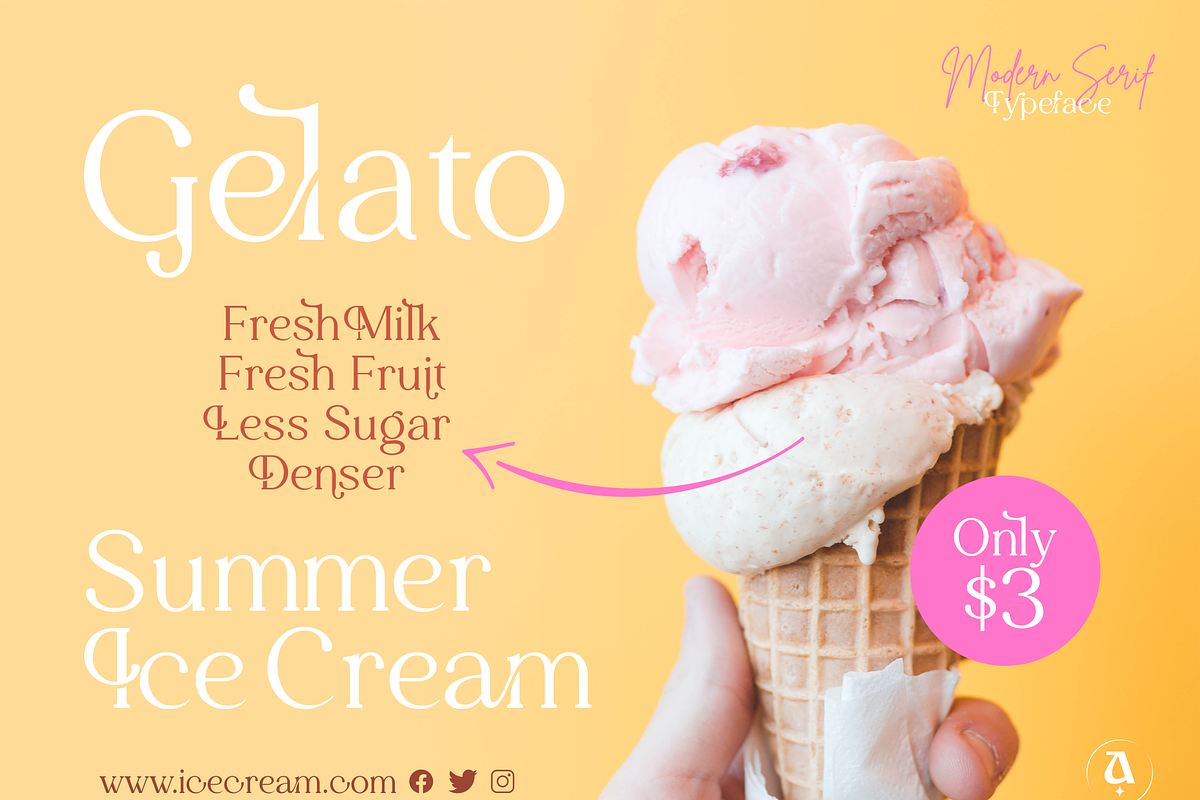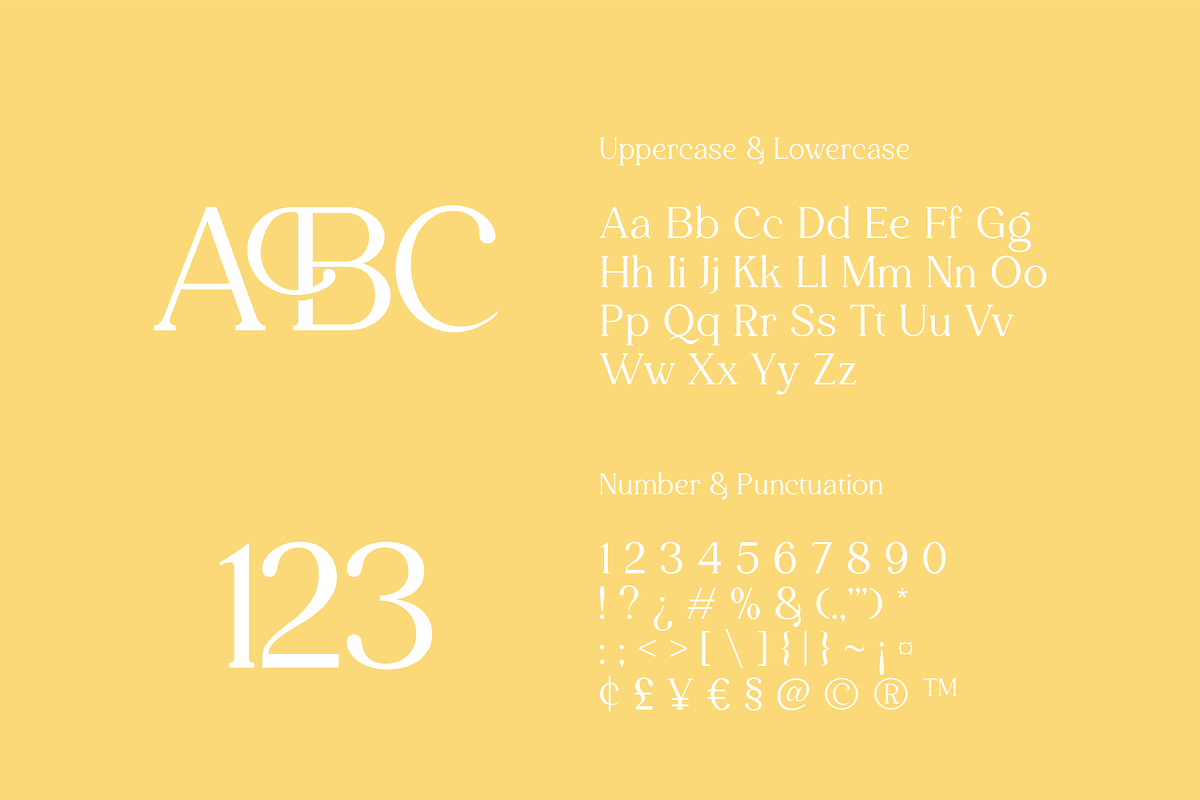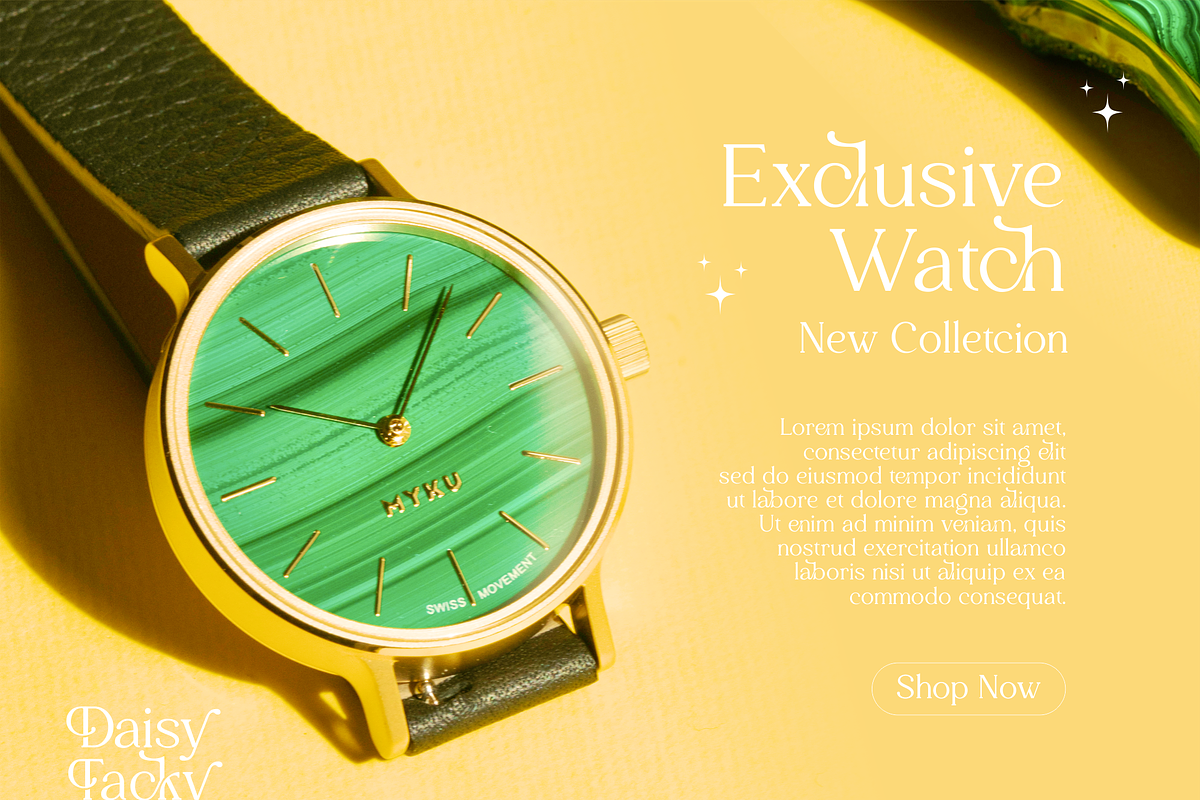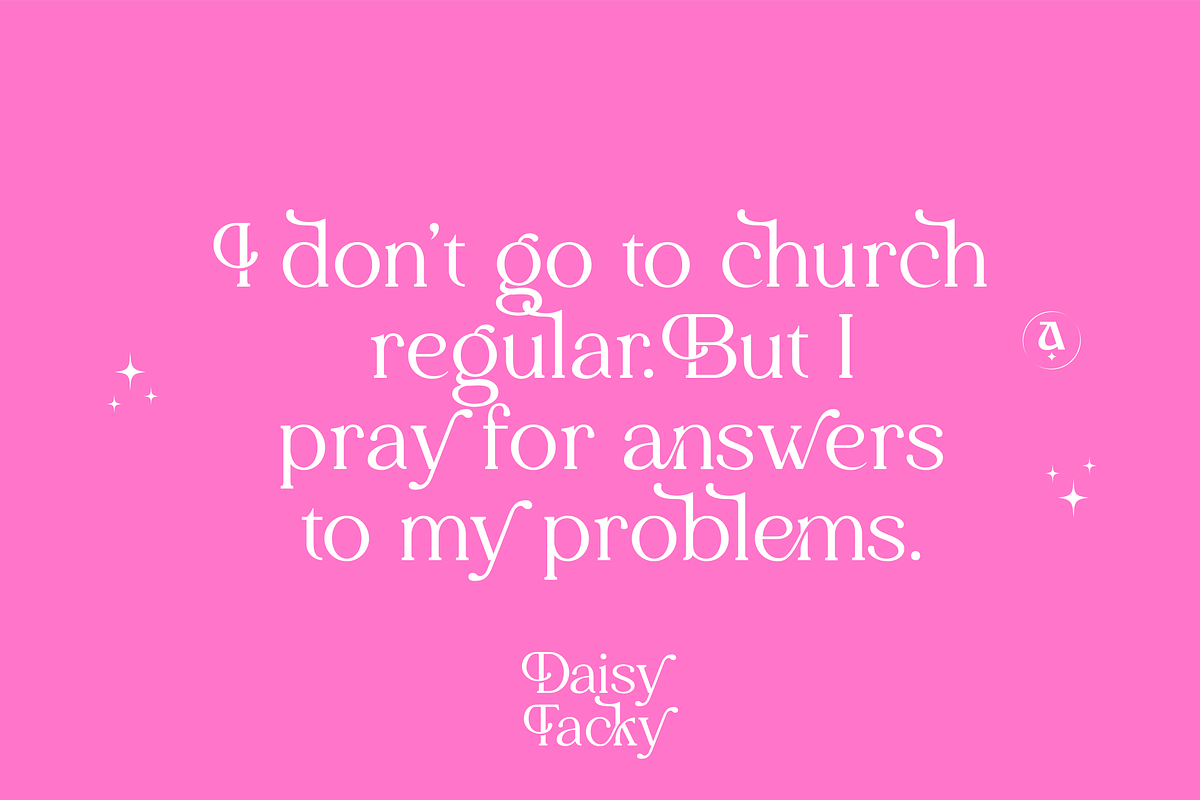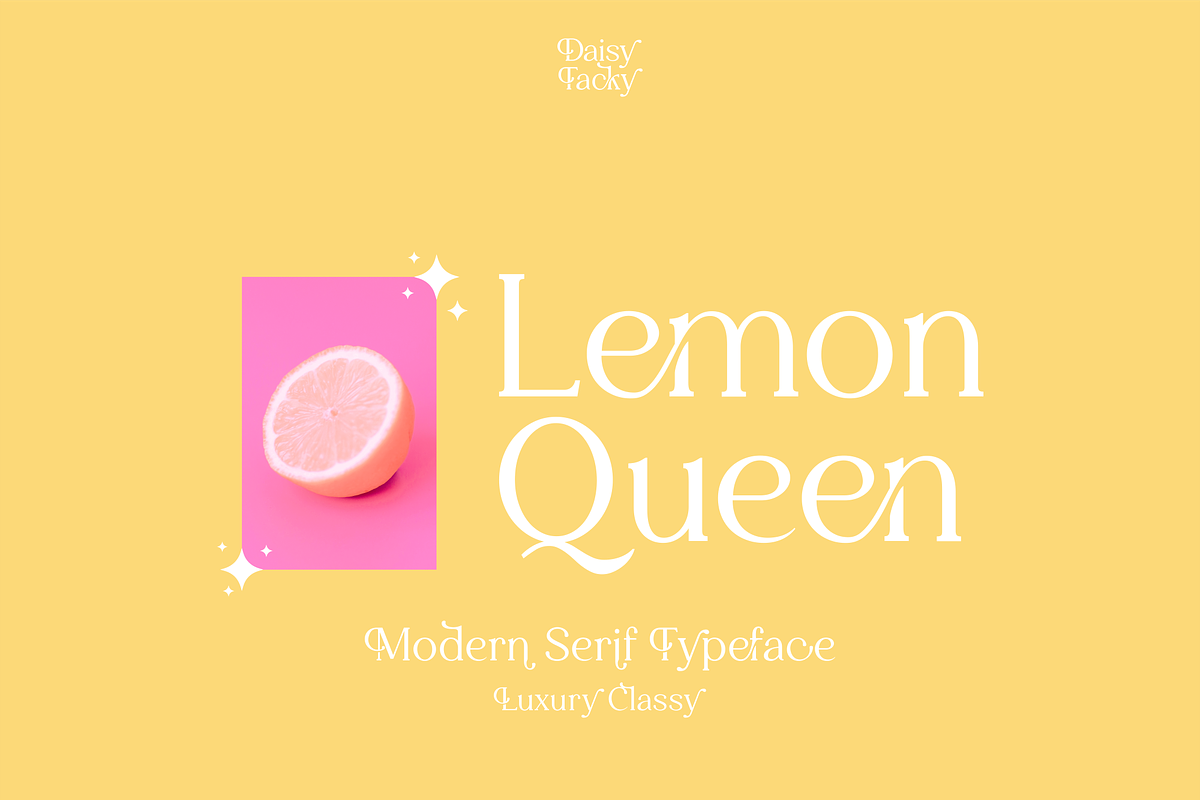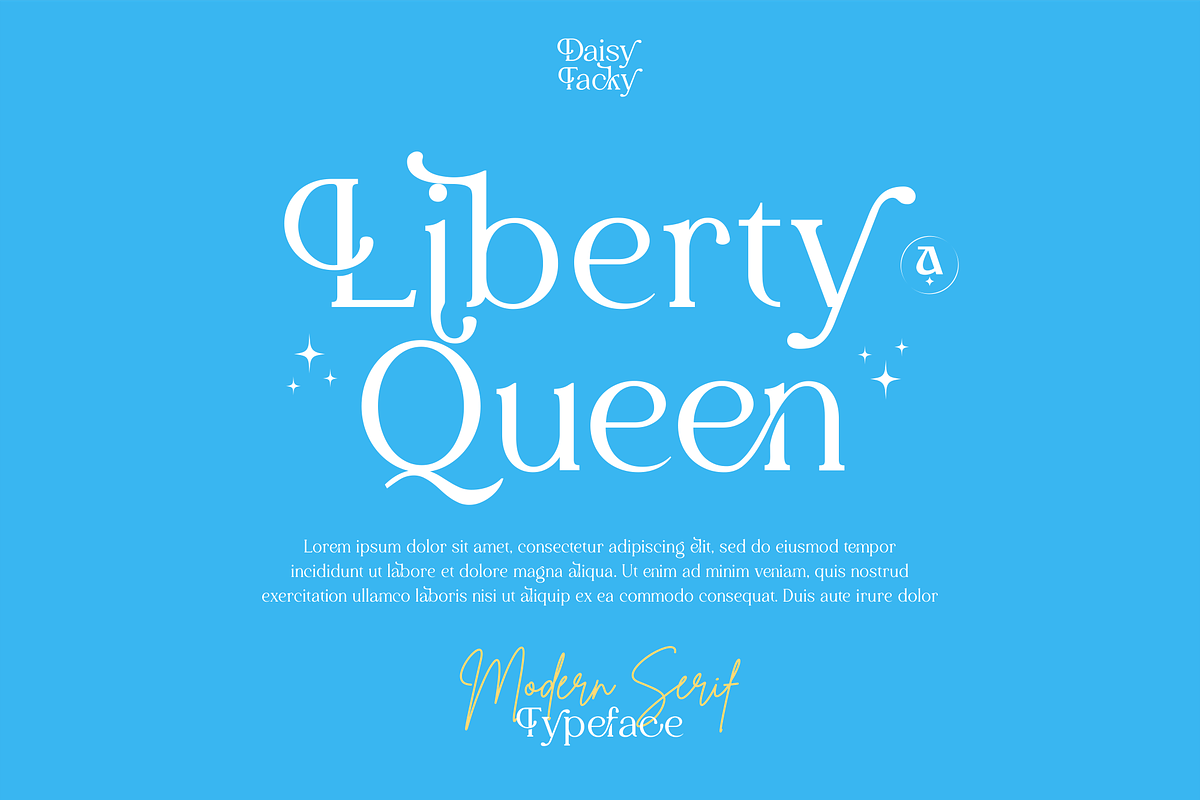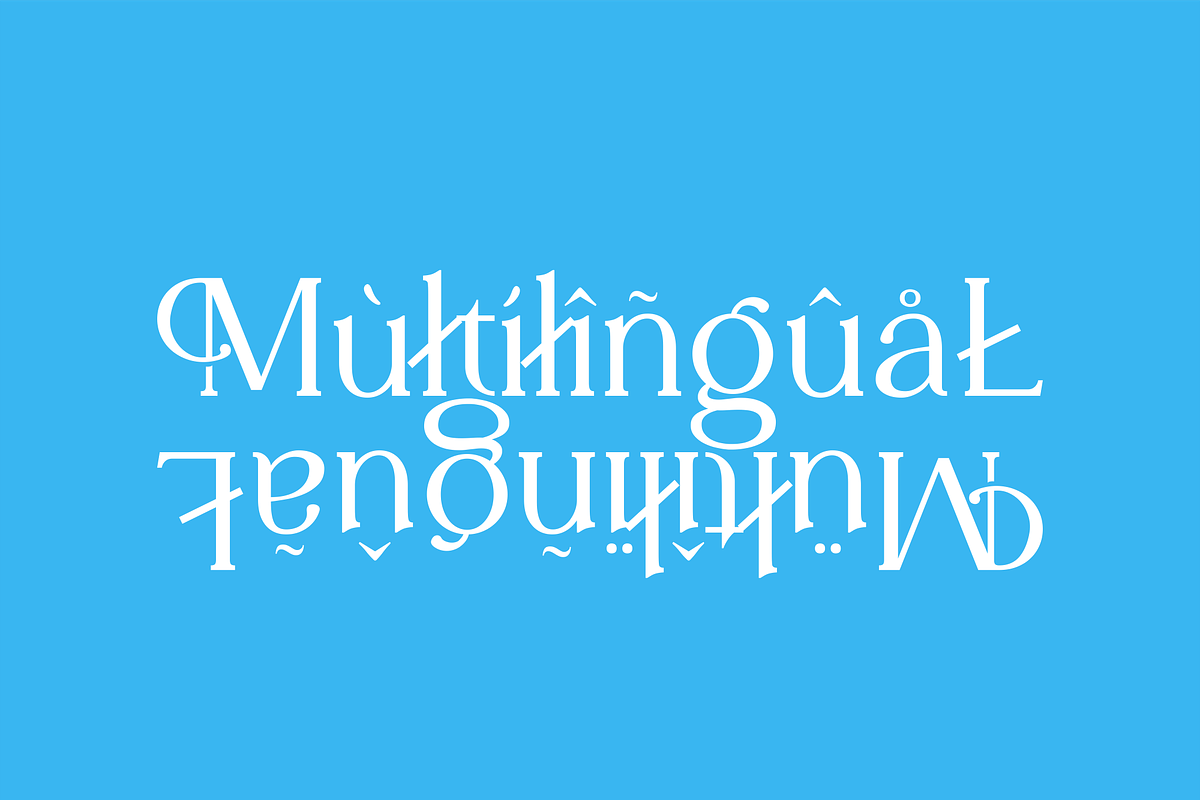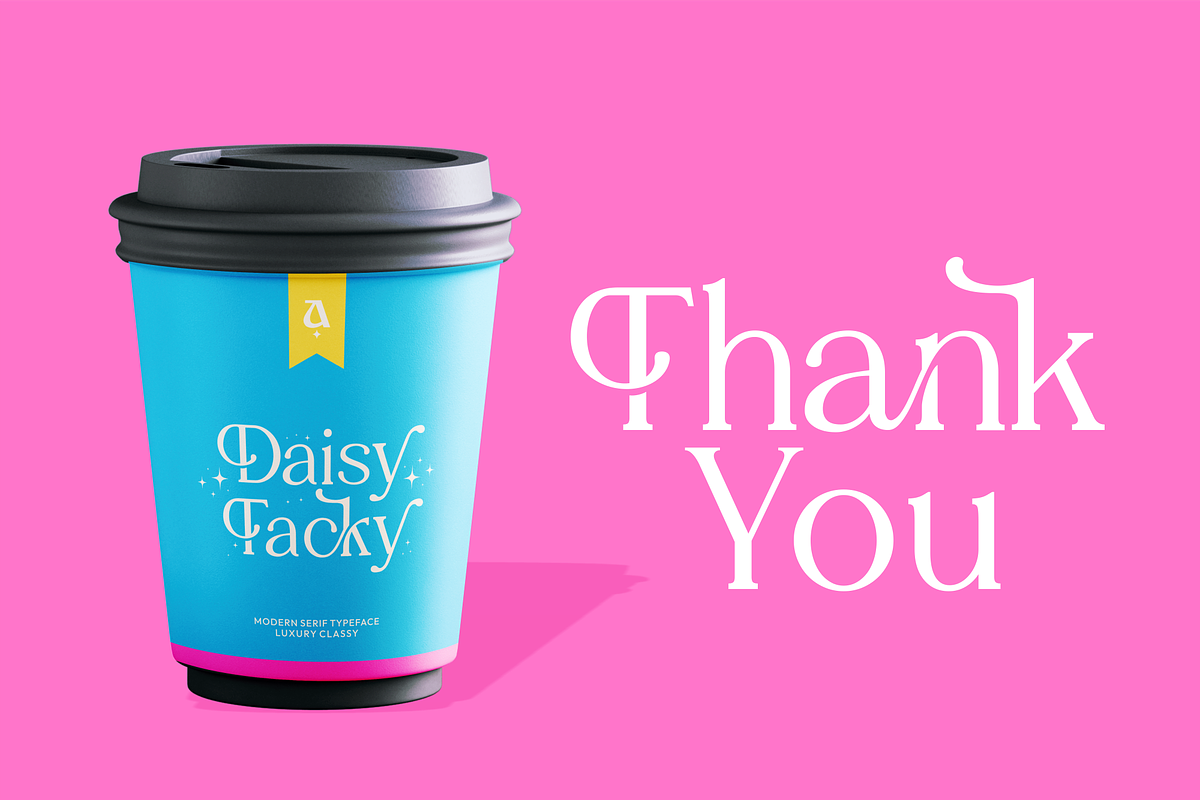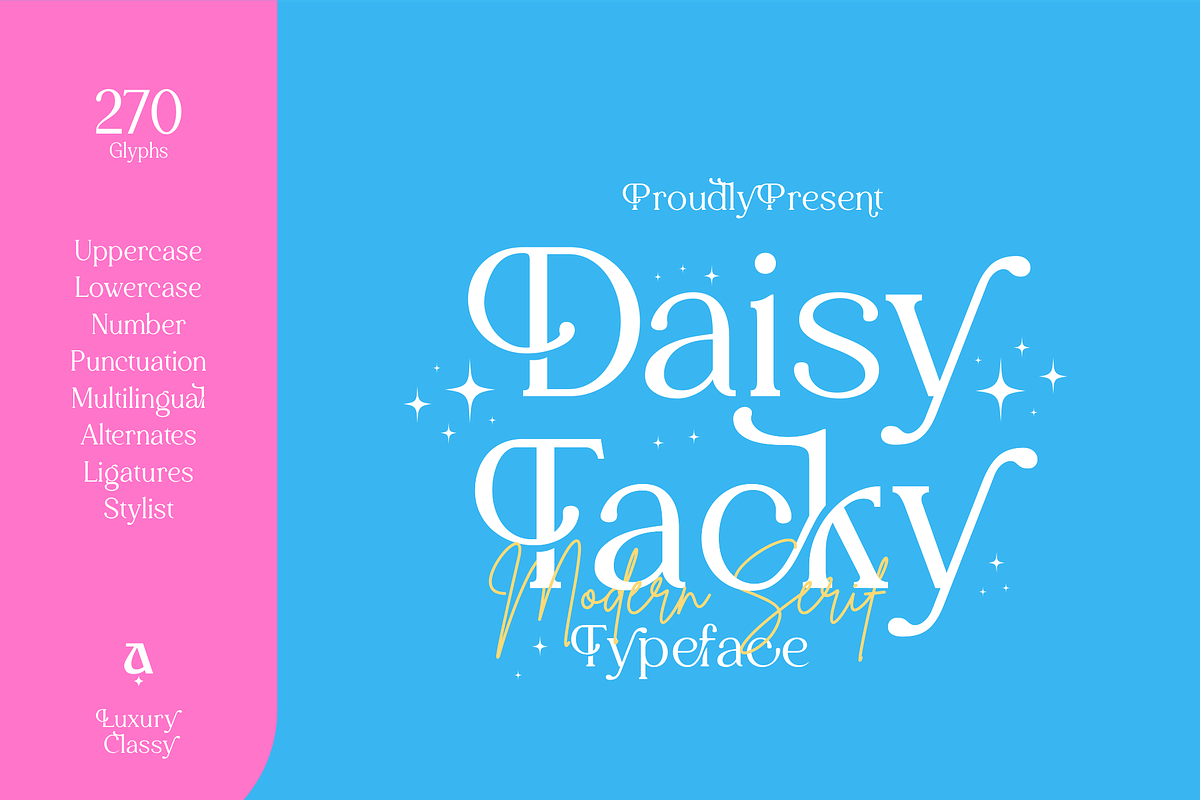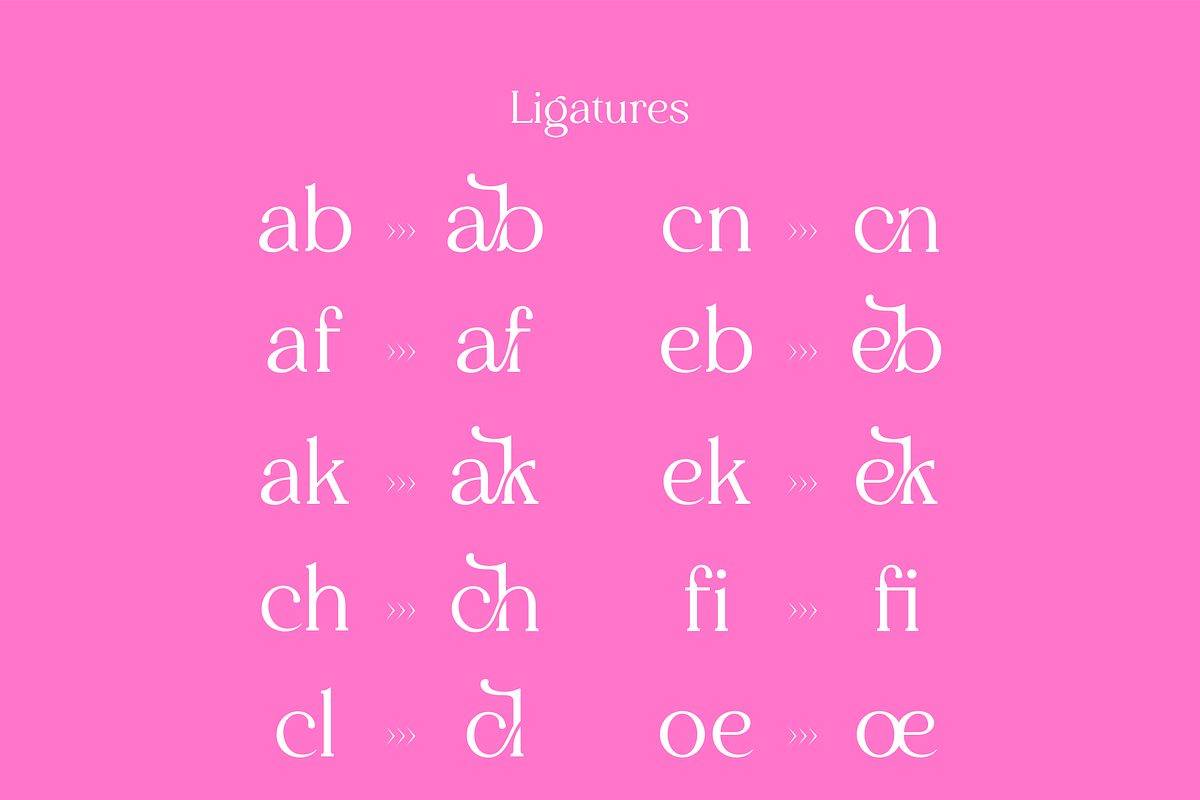
Daisy Tacky - Display Serif Font
Daisy Tacky is classy display serif font with 280+ characters. Includes uppercase, lowercase characters, multilingual, alternates and most common other characters.
Daisy Tacky is perfect for logos, social media posts, product packaging, product designs, and other projects.